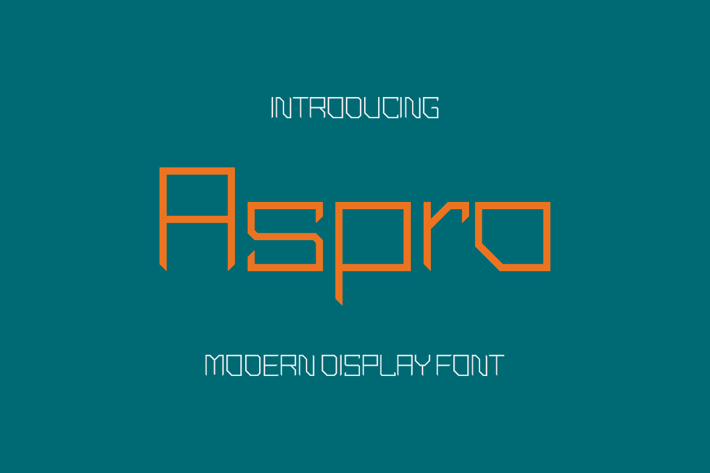
Aspro Font
Introducing our new product Aspro Font - Modern Font
Aspro Font - Modern Font is a bold and authentic display font. The font is suitable for any branding project like logo, t-shirt printing, esport, and many more. outstanding in a wide range of contexts.